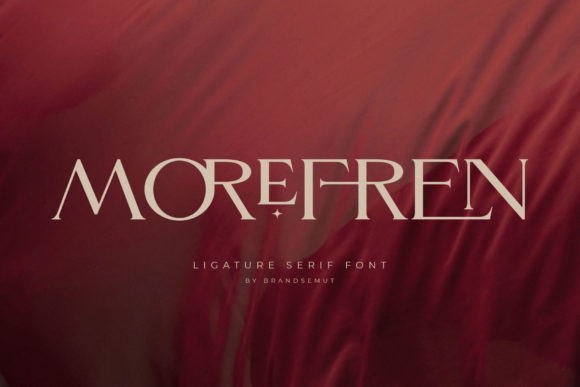
Introducing Morefren Font, a serif font that exudes elegance and distinction. Fall head over heels for its incredibly versatile style that effortlessly adds a touch of sophistication to your creative projects. With Morefren Font, you hold the key to unlocking a world of stunning wedding invitations, exquisite stationary art, captivating social media posts, and so much more.
Picture this: your wedding invitation adorned with Morefren Font's graceful curves and refined serifs. It's a visual symphony that sets the tone for an unforgettable celebration. The font's inherent charm adds a personal touch, transforming your invitation into a cherished keepsake.
Morefren Font doesn't stop at wedding invitations. Its versatility shines through in stationary art, where it lends an air of timeless elegance to letterheads, business cards, and posters. Its impeccable style effortlessly elevates any design project, leaving a lasting impression on your audience.
Step into the world of social media and let Morefren Font amplify your presence. Its captivating nature commands attention, making your posts stand out in the crowded digital landscape. Whether it's a captivating quote, an enticing product announcement, or a heartfelt message, Morefren Font ensures your words resonate with impact.
With Morefren Font, the possibilities are endless. Unleash your creativity and explore its boundless potential. Its user-friendly nature makes it a joy to use, ensuring a seamless and enjoyable experience. Dive into the world of Morefren Font and discover the endless possibilities it holds.